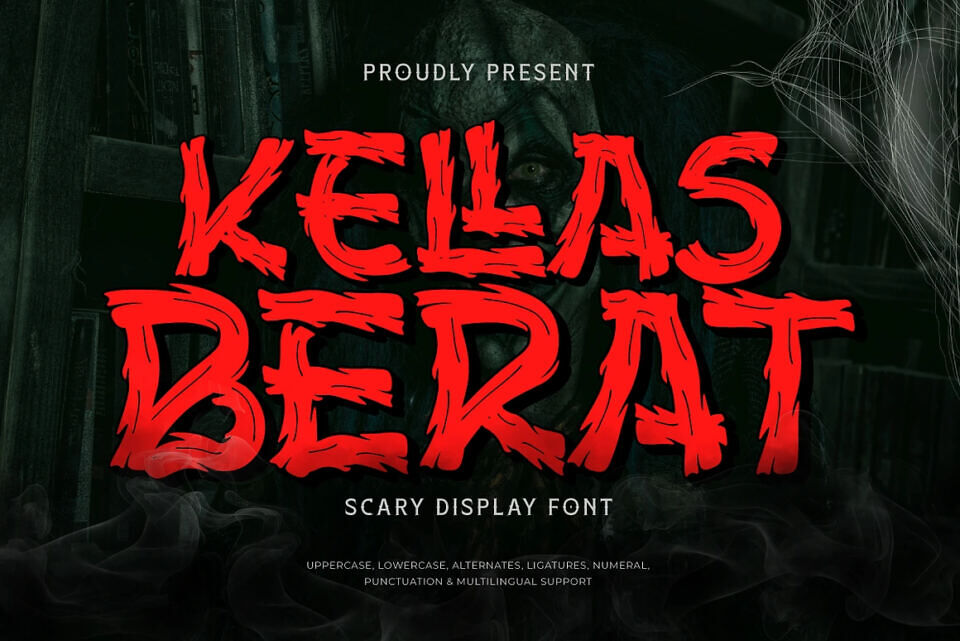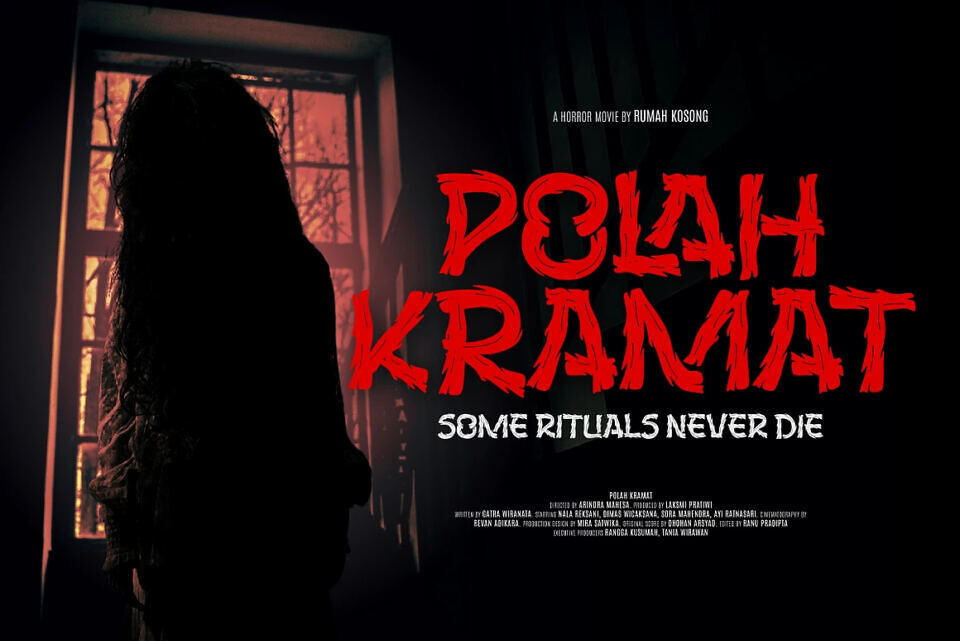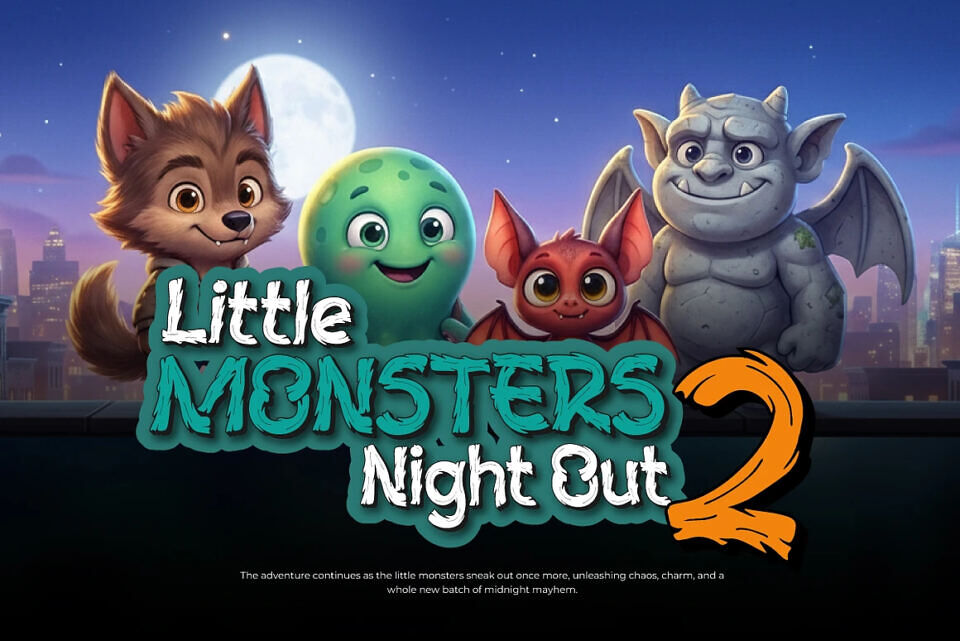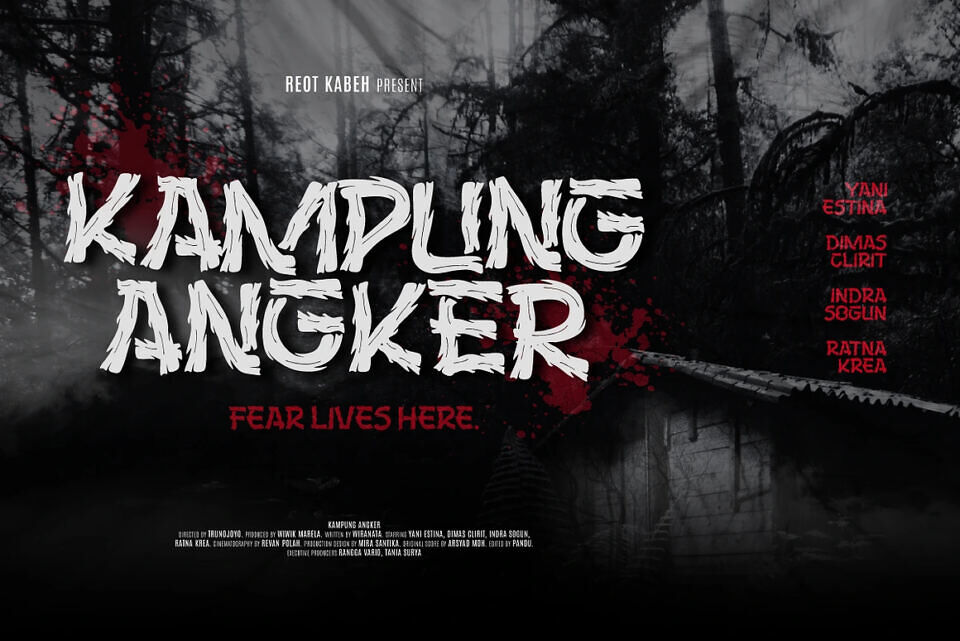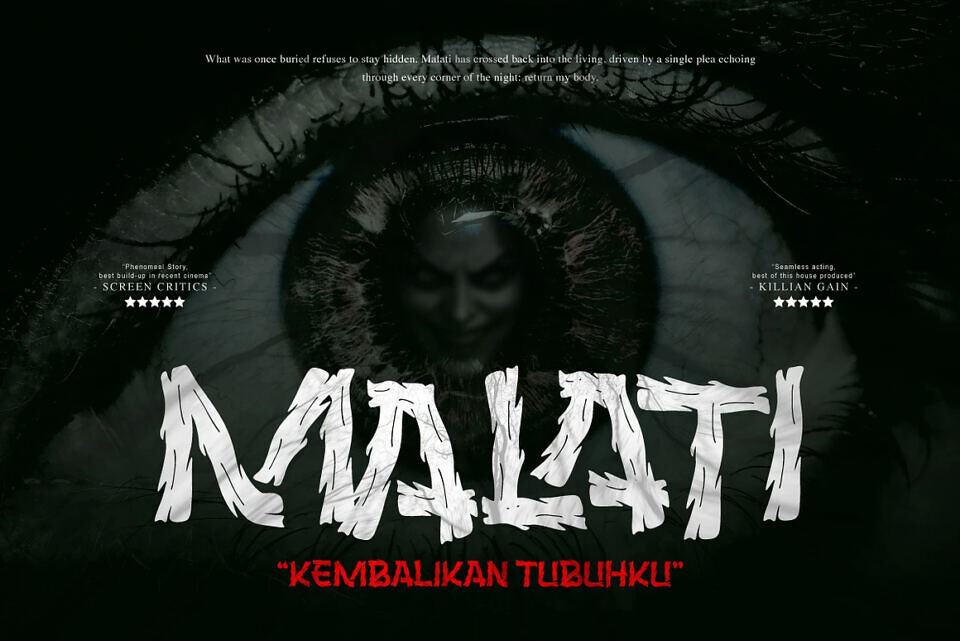
Kellas Berat Font
Kellas Berat is a scary display font with rough, sharp letterforms that evoke fear and intensity. Its handcrafted strokes create a powerful visual impact, making it perfect for horror-themed projects, such as movie titles, posters, and book covers.
The font’s aggressive handwriting style communicates tension and dark imagination, ideal for dramatic headlines that demand a strong presence.